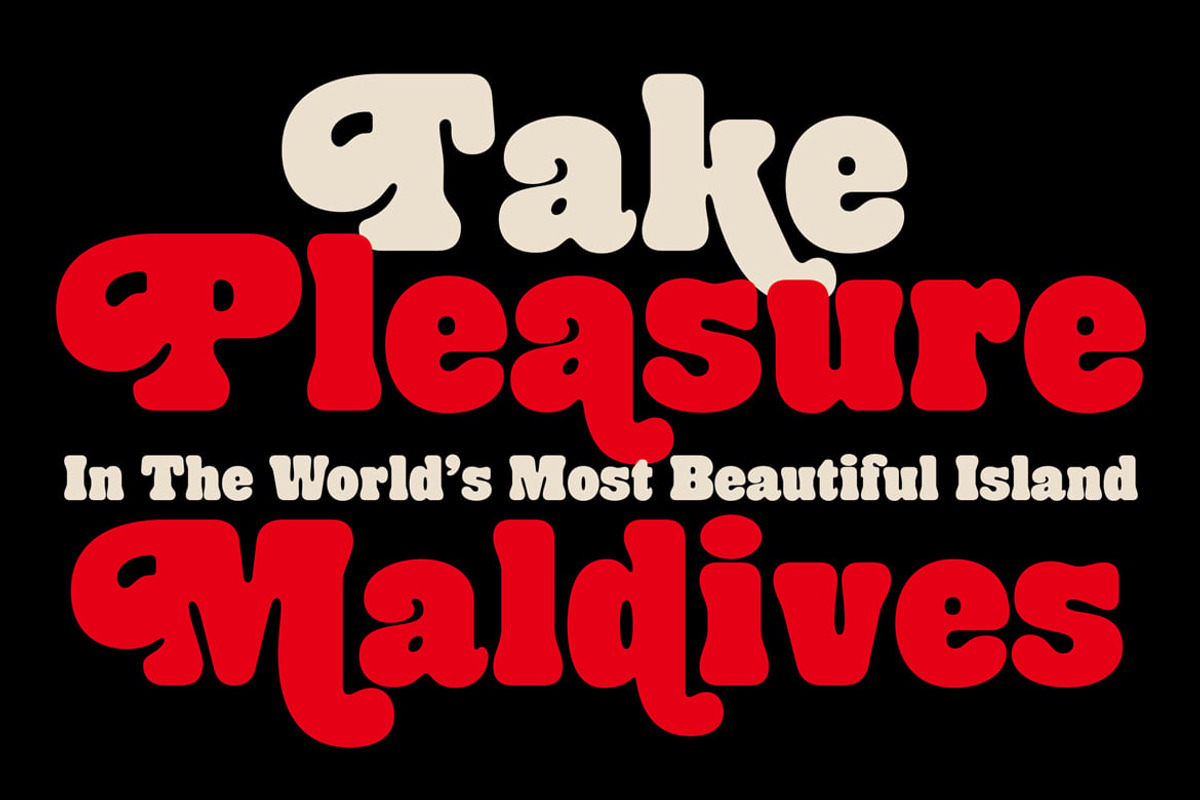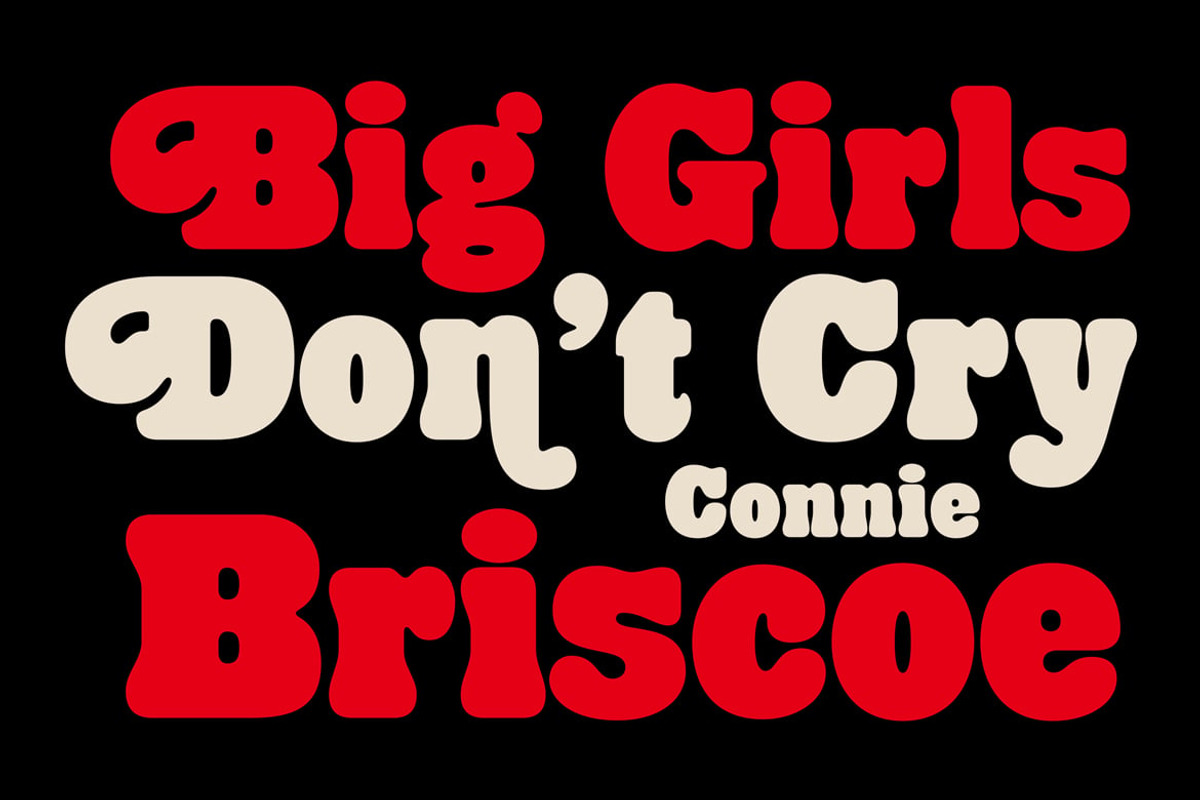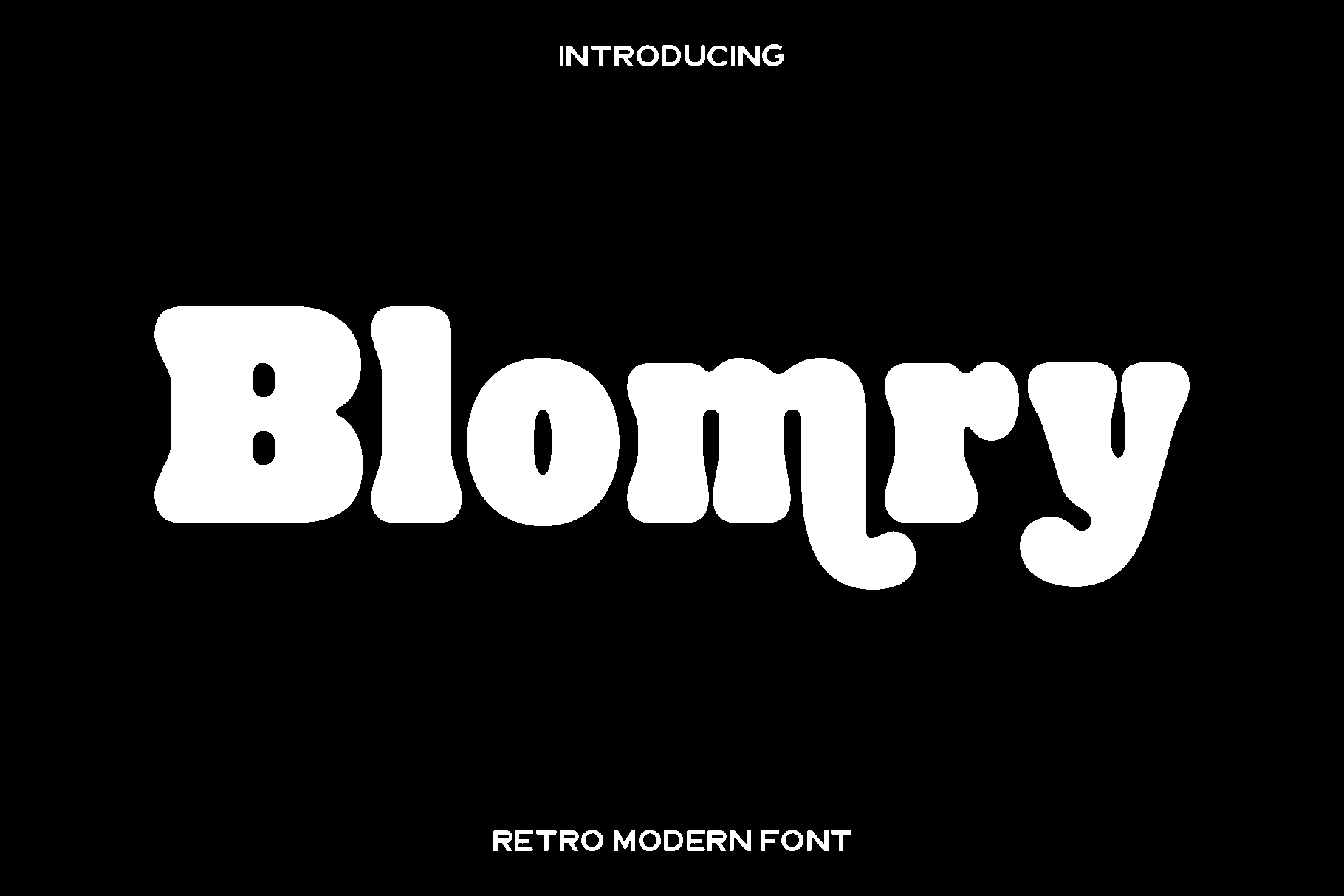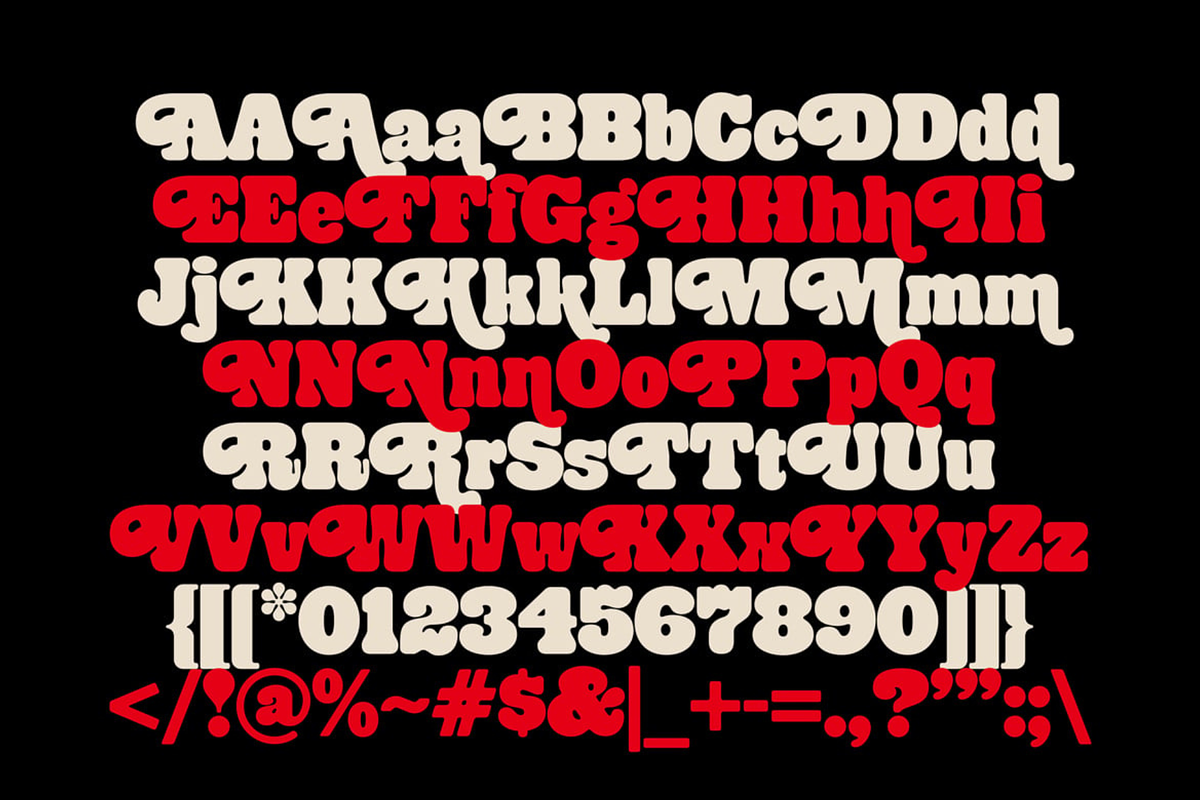
Blomry - Retro Modern Font
Blomry is a bold and expressive typeface that brings the playful energy of the 1970s into a fresh modern era. Inspired by iconic retro lettering, Blomry features soft rounded corners, thick curves, and a friendly personality that instantly warms up any design. While rooted in nostalgic charm, its refined structure and contemporary detailing make it perfectly suited for today’s creative needs.
This font shines in projects that need a lively and memorable touch. From branding and packaging to posters, logos, headlines, and social media graphics, Blomry delivers a vibrant visual impact that captures attention with ease. Its range of weights and alternate characters adds versatility, giving designers the freedom to craft expressive wordmarks, dynamic titles, and unique compositions that feel both vintage and modern.
Blomry carries the spirit of fun, creativity, and bold storytelling. Whether you aim to evoke a retro vibe or elevate a modern design with playful character, this font offers the ideal balance of style and usability. Let Blomry transform your work into something unforgettable.
Blomry Font Features:
• Uppercase and lowercase
• Alternate characters included
• Numerals and punctuation